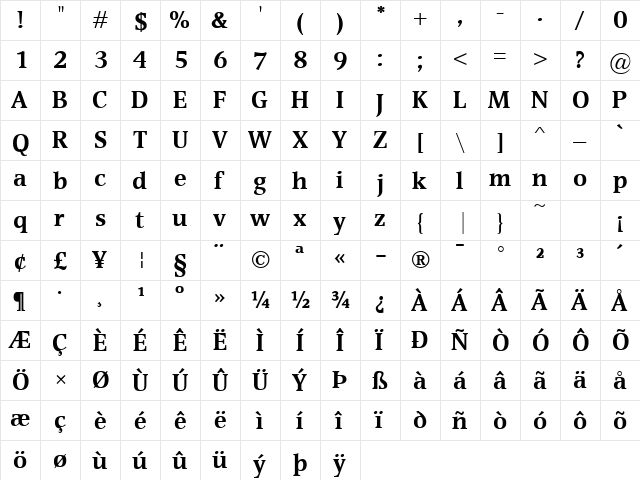
Devin Bold
Design Context for Devin Typeface
Devin offers clean, dependable letterforms without strong stylistic allegiance, making it a practical choice for designers who need flexibility. The heavy weight commands attention and anchors typographic hierarchies.
Pro Tip: Use Devin in both headline and body roles to test its range before committing to a single application.